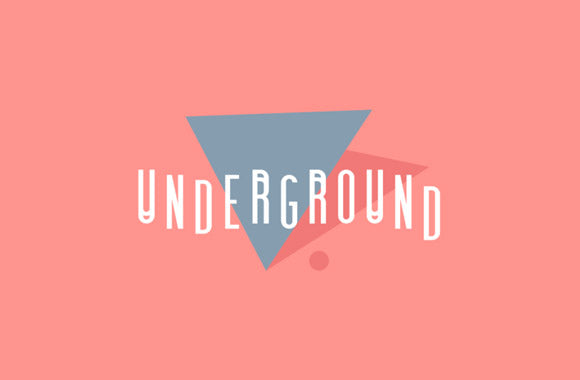
Download and enjoy this free innercity font. Cool typeface to showcase your designs in a modern way. This free font file was found from the amazing source called The Hungry JPEG. Amaze your fellow designers and create stunning designs with this beautiful font.